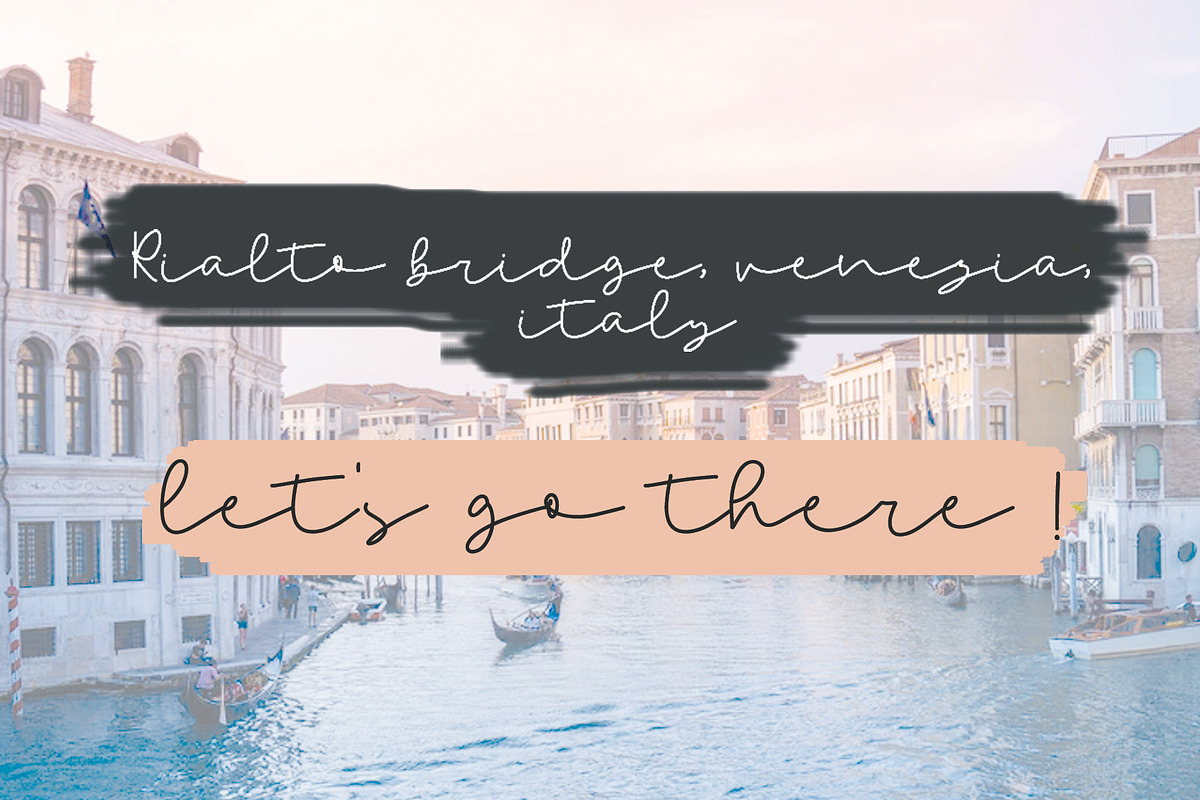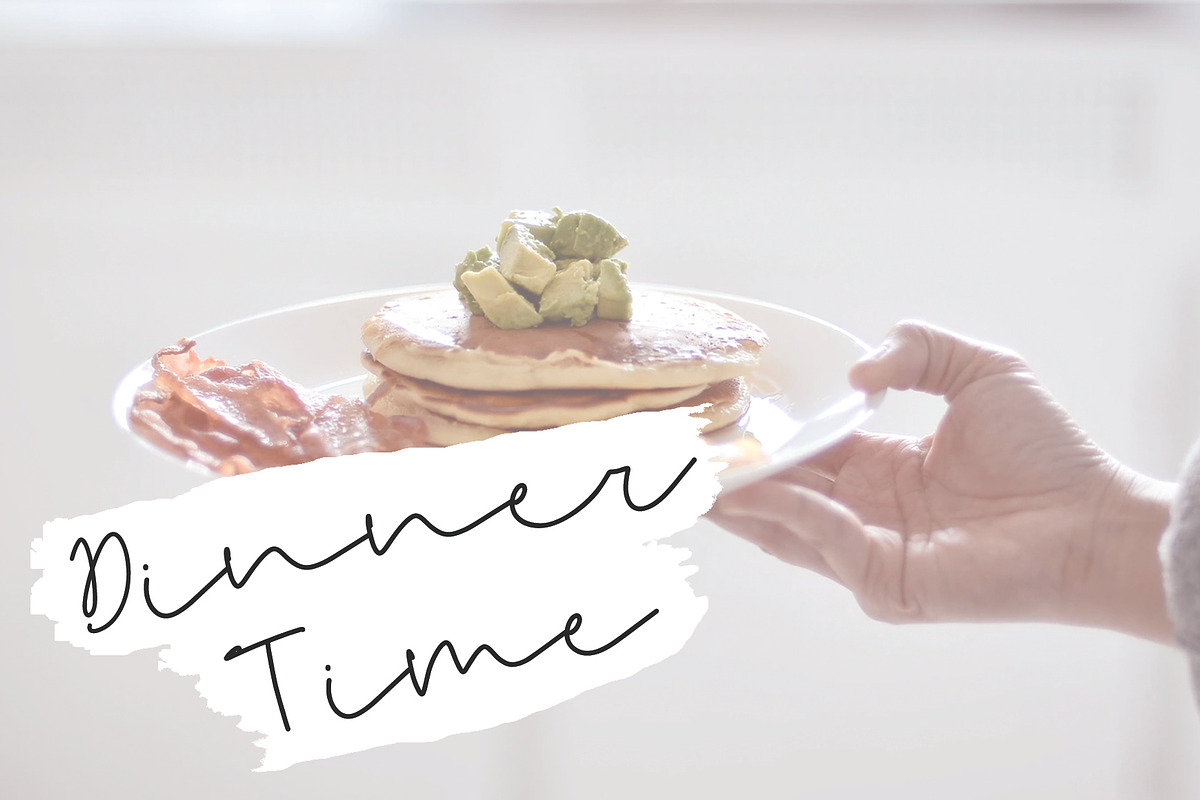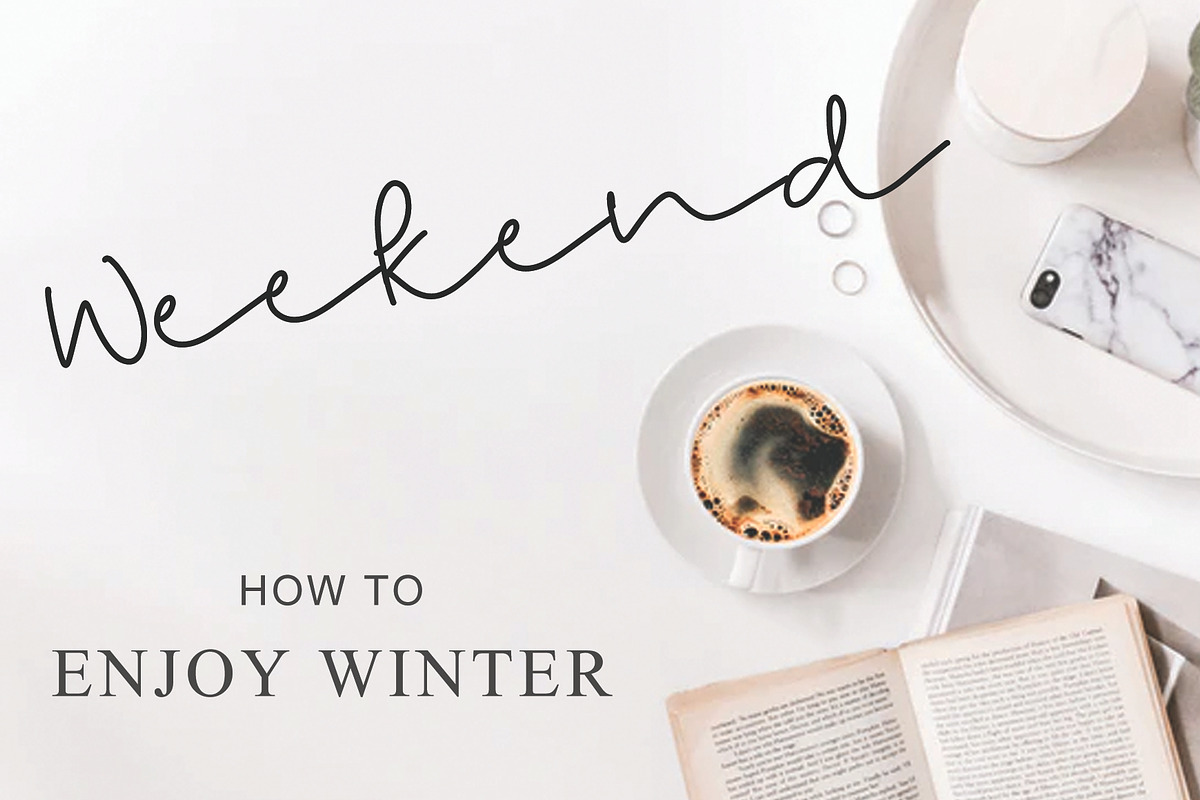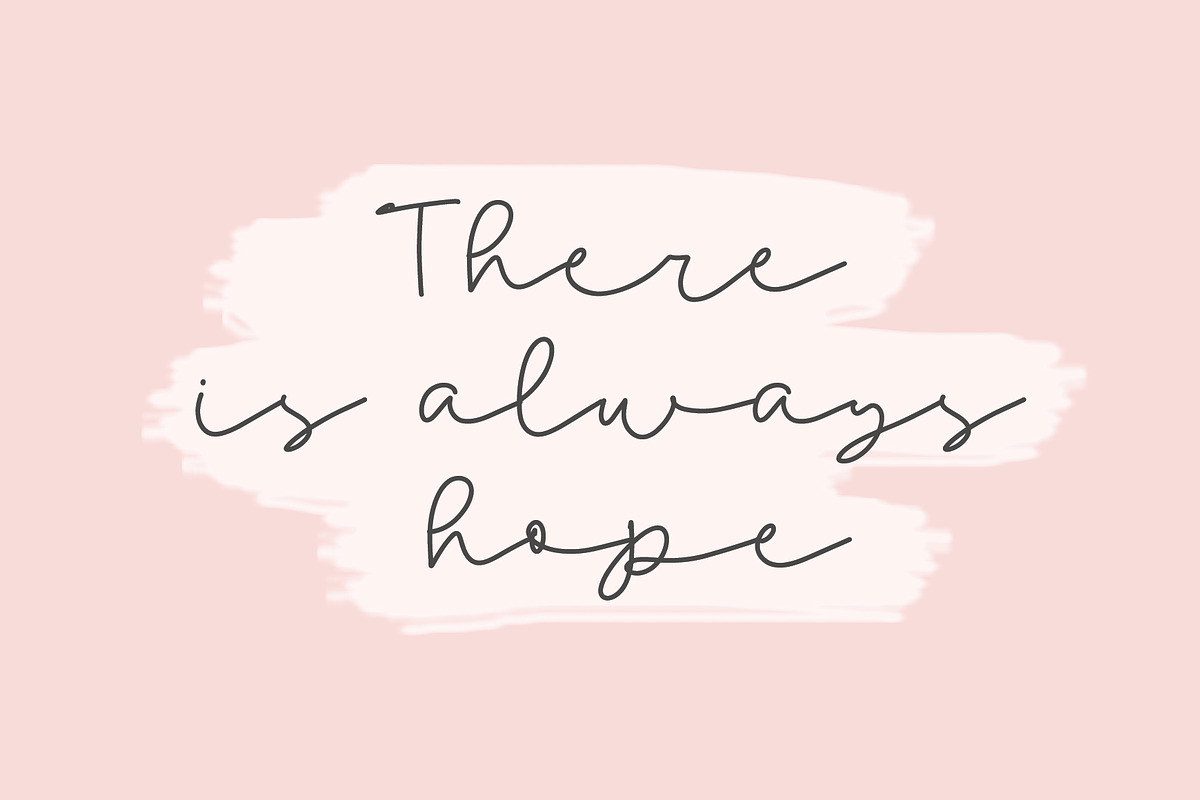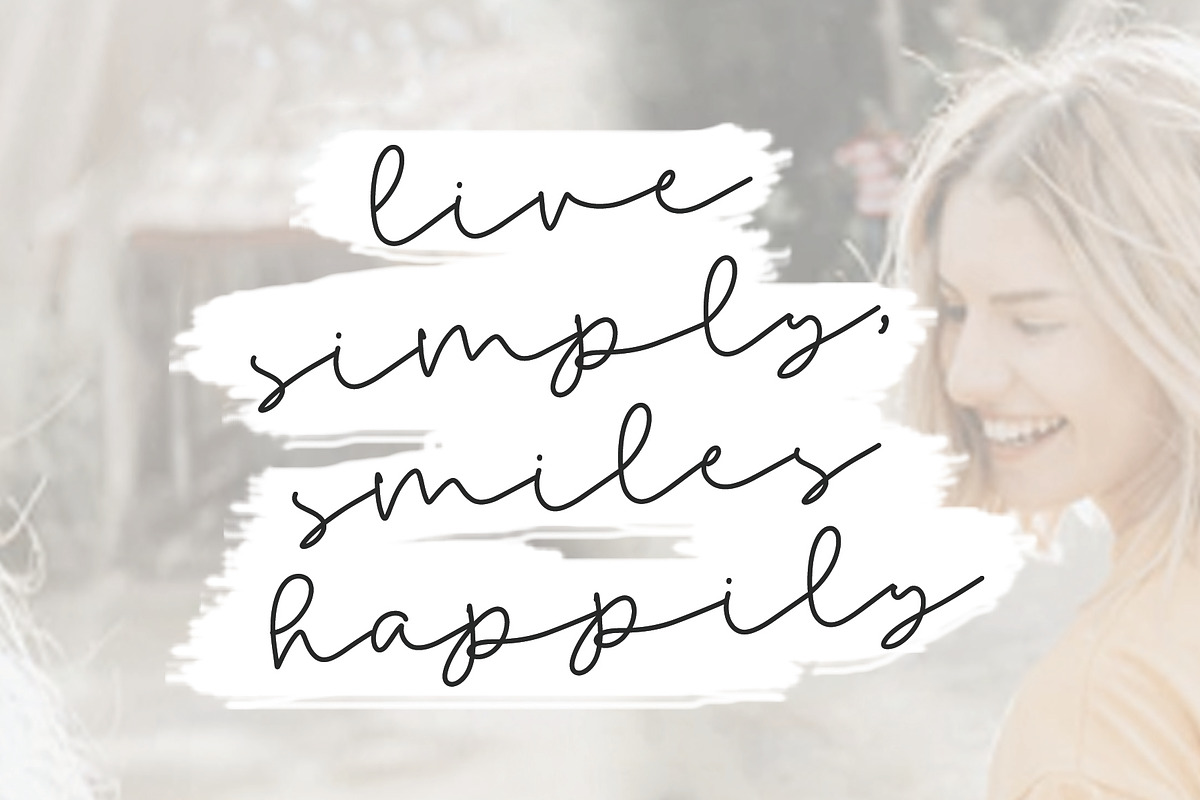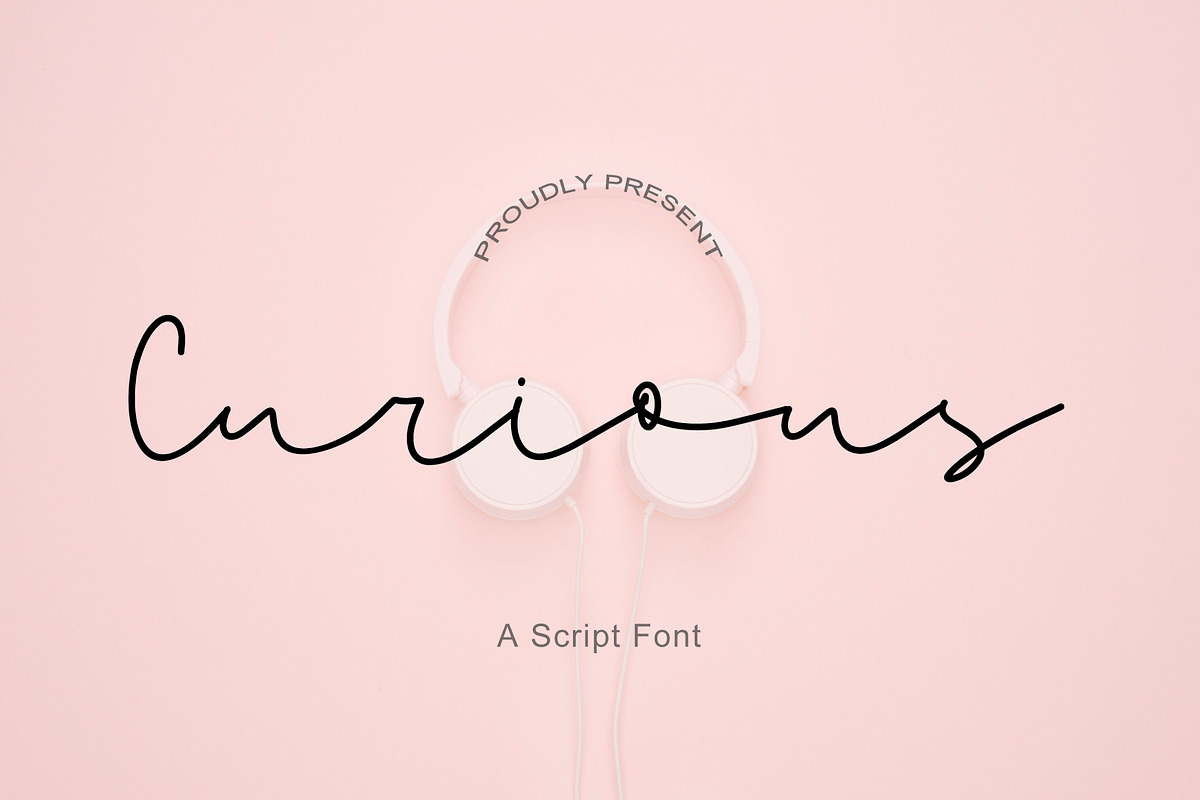
Curious - Script Font
Curious Script Style - modern & fresh script with handwritten and script style makes this font look elegant, natural, stylish and perfect for any extraordinary project that requires a handwritten feel.
It looks stunning on wedding invitations, thank you cards, watermark, photography, advertisements, quotes, greeting cards, logos,label,wedding designs, business cards, product packaging, special events or anything that need handwriting taste.